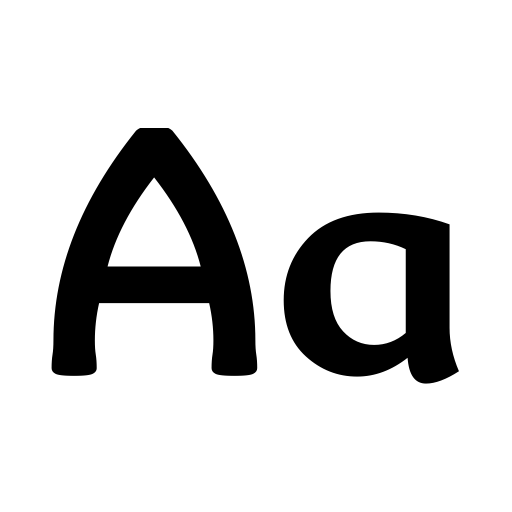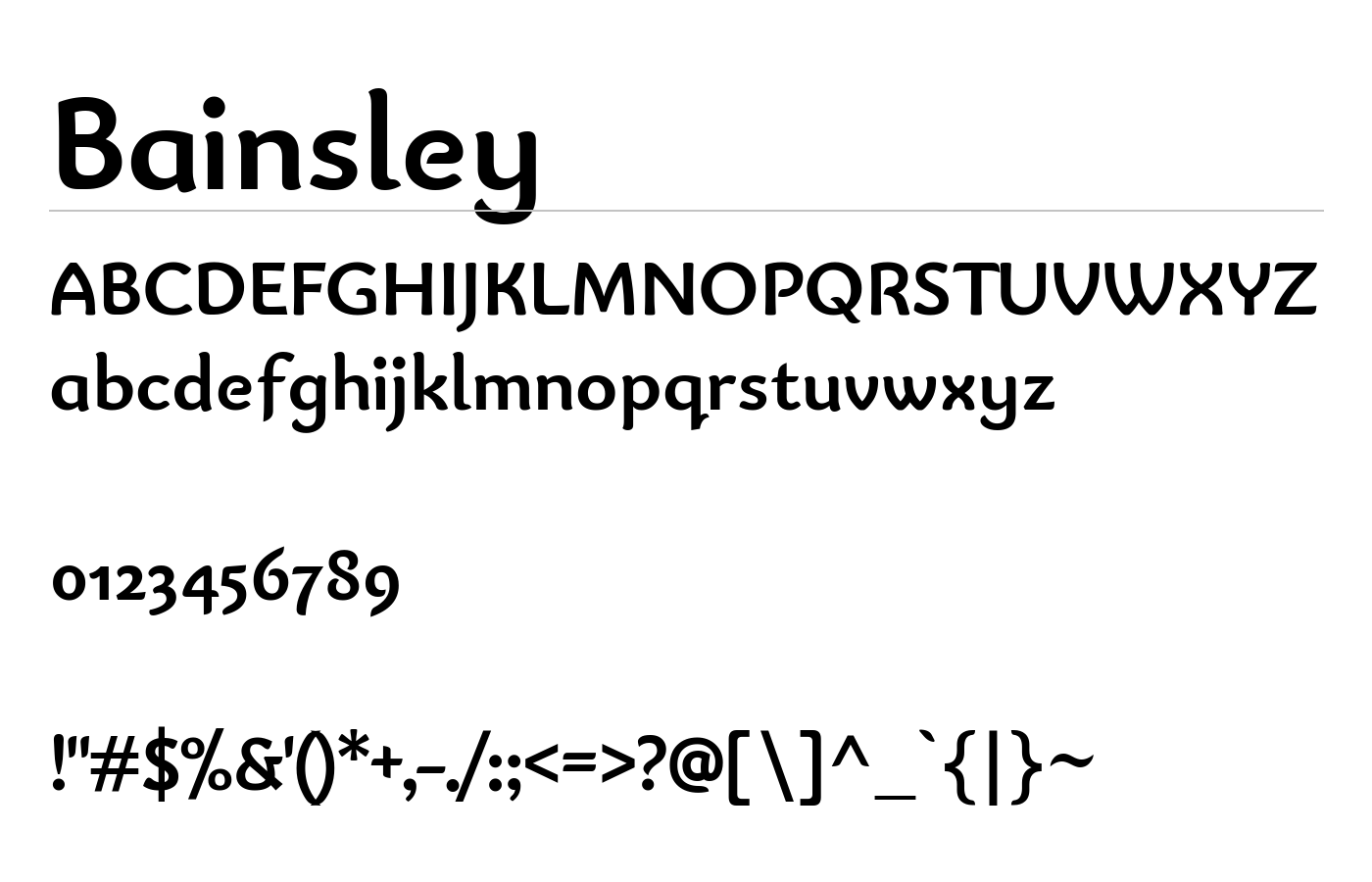
Bainsley is a playful and friendly sans serif font with a warm, hand-crafted feel. Its rounded shapes and moderate contrast give it an inviting personality, making it ideal for casual branding, children’s books, or creative projects that need a touch of charm. This font’s clear letterforms and unique character details make it versatile for both headlines and short texts.
Bainsley Font
About Bainsley Font
| Designer | Paul James MIller |